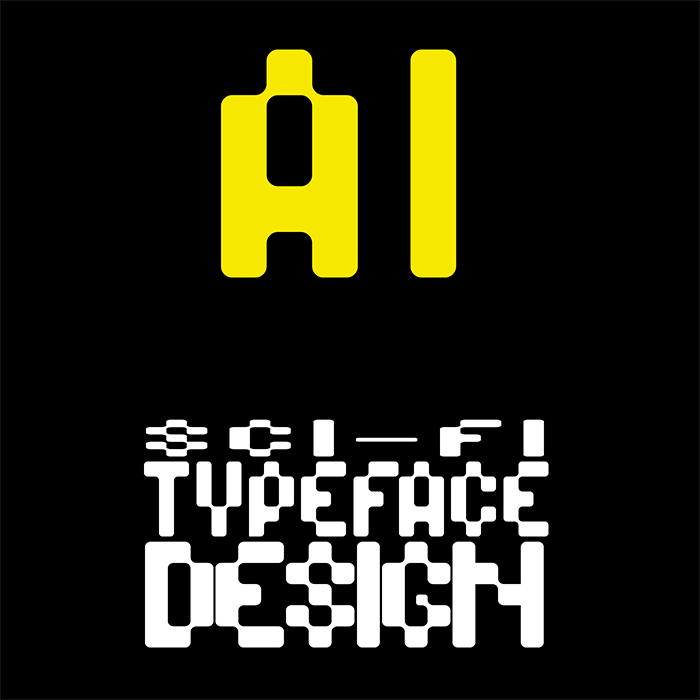
Yea that is a much more legible solution indeed!
This style never goes out of style. Well done.
Exactly, its such a funny style to play around with. Friendly yet futuristic